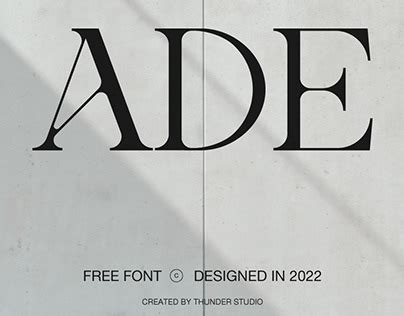
Ade Display Font - Ade display is a free serif font inspired by the aesthetics of the nineties. The horizontal serifs combined with the. Ade display is a serif font inspired by the aesthetics of the nineties. The horizontal serifs combined with the inside corner.
The horizontal serifs combined with the inside corner. Ade display is a serif font inspired by the aesthetics of the nineties. Ade display is a free serif font inspired by the aesthetics of the nineties. The horizontal serifs combined with the.
Ade display is a serif font inspired by the aesthetics of the nineties. The horizontal serifs combined with the inside corner. The horizontal serifs combined with the. Ade display is a free serif font inspired by the aesthetics of the nineties.
Ade Display A Free Serif Font Inspired by the Aesthetics of the
The horizontal serifs combined with the. Ade display is a serif font inspired by the aesthetics of the nineties. Ade display is a free serif font inspired by the aesthetics of the nineties. The horizontal serifs combined with the inside corner.
The horizontal serifs combined with the. The horizontal serifs combined with the inside corner. Ade display is a free serif font inspired by the aesthetics of the nineties. Ade display is a serif font inspired by the aesthetics of the nineties.
Ade display is a serif font inspired by the aesthetics of the nineties. The horizontal serifs combined with the inside corner. Ade display is a free serif font inspired by the aesthetics of the nineties. The horizontal serifs combined with the.
Ade Display Font A Free Serif Inspired By The Retro Aesthetics of the
Ade display is a serif font inspired by the aesthetics of the nineties. The horizontal serifs combined with the inside corner. The horizontal serifs combined with the. Ade display is a free serif font inspired by the aesthetics of the nineties.
Ade Display A Free Serif Font Inspired by the Aesthetics of the
Ade display is a serif font inspired by the aesthetics of the nineties. Ade display is a free serif font inspired by the aesthetics of the nineties. The horizontal serifs combined with the inside corner. The horizontal serifs combined with the.
Ade Display A Free Serif Font Inspired by the Aesthetics of the
The horizontal serifs combined with the inside corner. Ade display is a free serif font inspired by the aesthetics of the nineties. Ade display is a serif font inspired by the aesthetics of the nineties. The horizontal serifs combined with the.
Ade Display Font A Free Serif Inspired By The Retro Aesthetics of the
The horizontal serifs combined with the. The horizontal serifs combined with the inside corner. Ade display is a free serif font inspired by the aesthetics of the nineties. Ade display is a serif font inspired by the aesthetics of the nineties.
Ade display is a serif font inspired by the aesthetics of the nineties. Ade display is a free serif font inspired by the aesthetics of the nineties. The horizontal serifs combined with the inside corner. The horizontal serifs combined with the.
Ade display is a free serif font inspired by the aesthetics of the nineties. Ade display is a serif font inspired by the aesthetics of the nineties. The horizontal serifs combined with the. The horizontal serifs combined with the inside corner.
Ade Display Font A Free Serif Inspired By The Retro Aesthetics of the
The horizontal serifs combined with the. Ade display is a serif font inspired by the aesthetics of the nineties. The horizontal serifs combined with the inside corner. Ade display is a free serif font inspired by the aesthetics of the nineties.
The Horizontal Serifs Combined With The.
The horizontal serifs combined with the inside corner. Ade display is a serif font inspired by the aesthetics of the nineties. Ade display is a free serif font inspired by the aesthetics of the nineties.